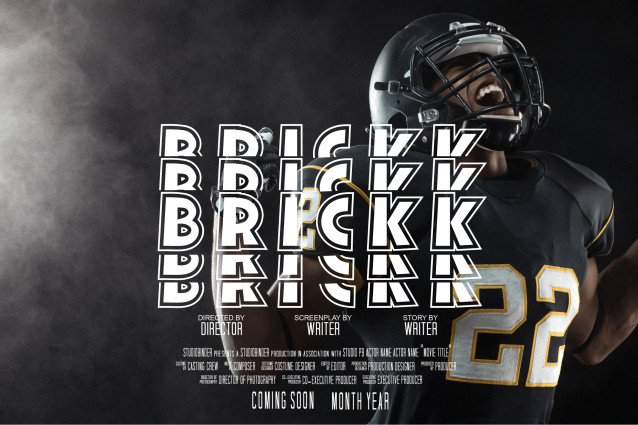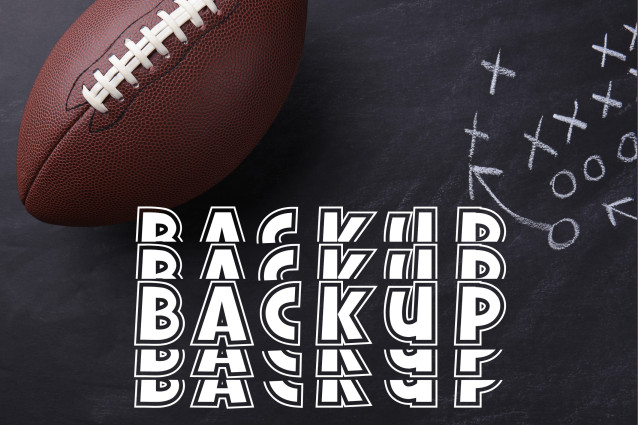
Handwriting Varsity Stacked Font
Handwriting Varsity Stacked Font is a fun and casual handwritten font that blends the bold character of varsity-style lettering with a stacked layout and a playful, pen-drawn twist. Designed for school-themed designs, spirited apparel, motivational quotes, and youthful branding, this font adds a friendly punch of personality to any project. Its quirky stacked structure makes it perfect for standout headlines, monograms, and creative displays.